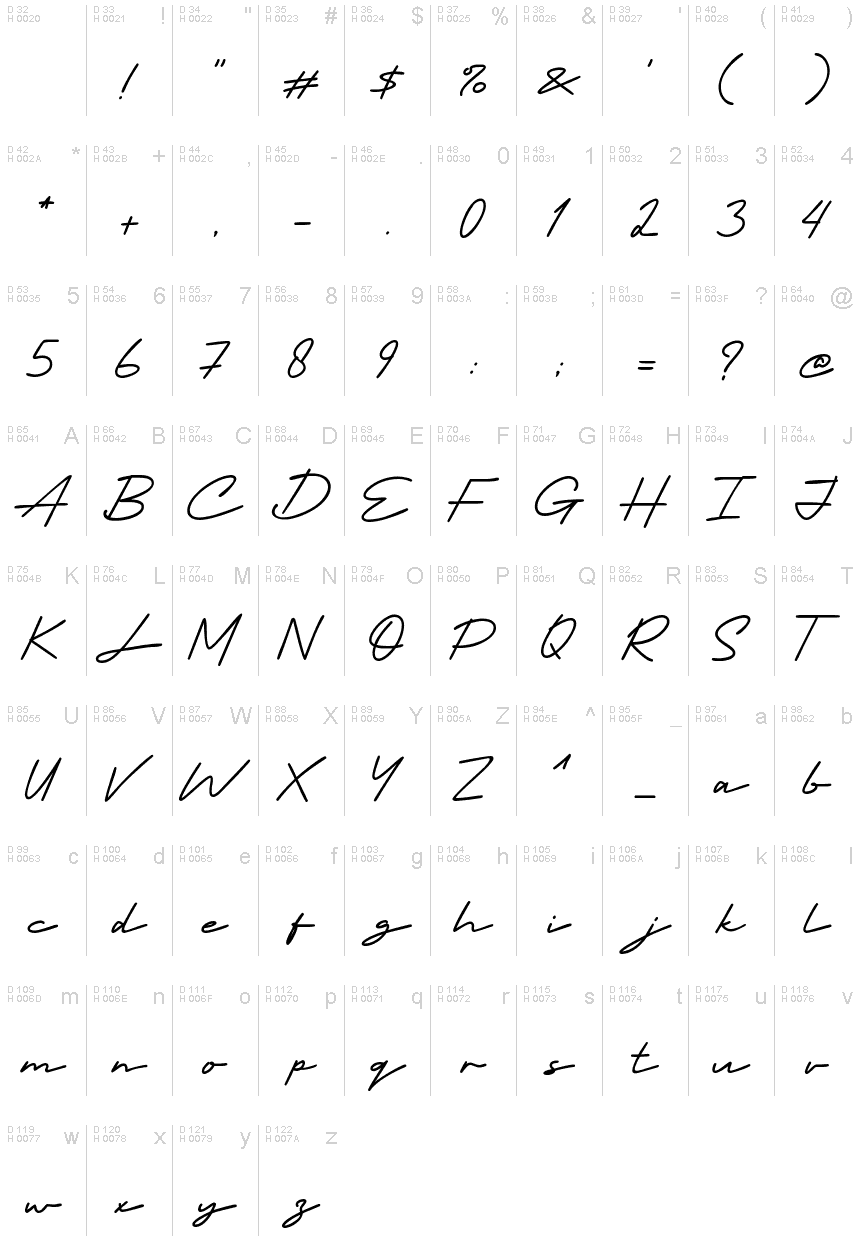
Indosign
Indosign, an exquisite handwritten font crafted by Khurasan, adds a touch of elegance to any project. With its light weight and signature style, this font is perfect for creating stunning logos, wedding invitations, and personal branding. Whether you're designing a fashion magazine or crafting a blog post header, Indosign's fluid strokes and unique characters will captivate your audience. Its versatility makes it suitable for both digital and print media, enabling you to create visually appealing graphics, social media posts, or even delicate tattoo designs. Elevate your projects with the charm of Indosign today!